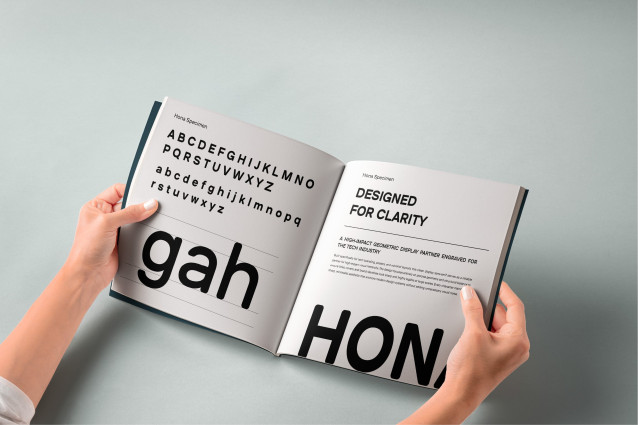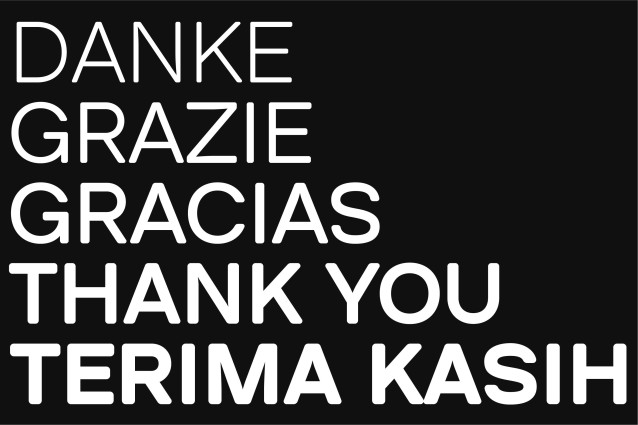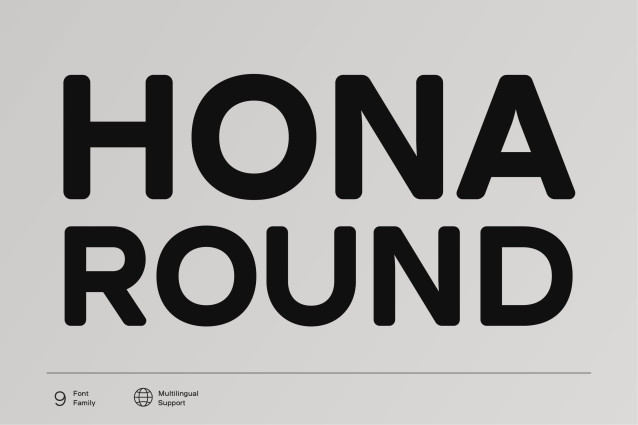
Hona Rounded Font
Hona Rounded Font – A contemporary rounded sans-serif inspired by modern tech advertising. Moving away from the stark, serious neo-grotesques typically found in the tech world, this typeface introduces a welcoming sense of playfulness without sacrificing clean minimalism. It’s designed to give your tech, branding, and display projects a fresh, approachable, and high-end vibe.